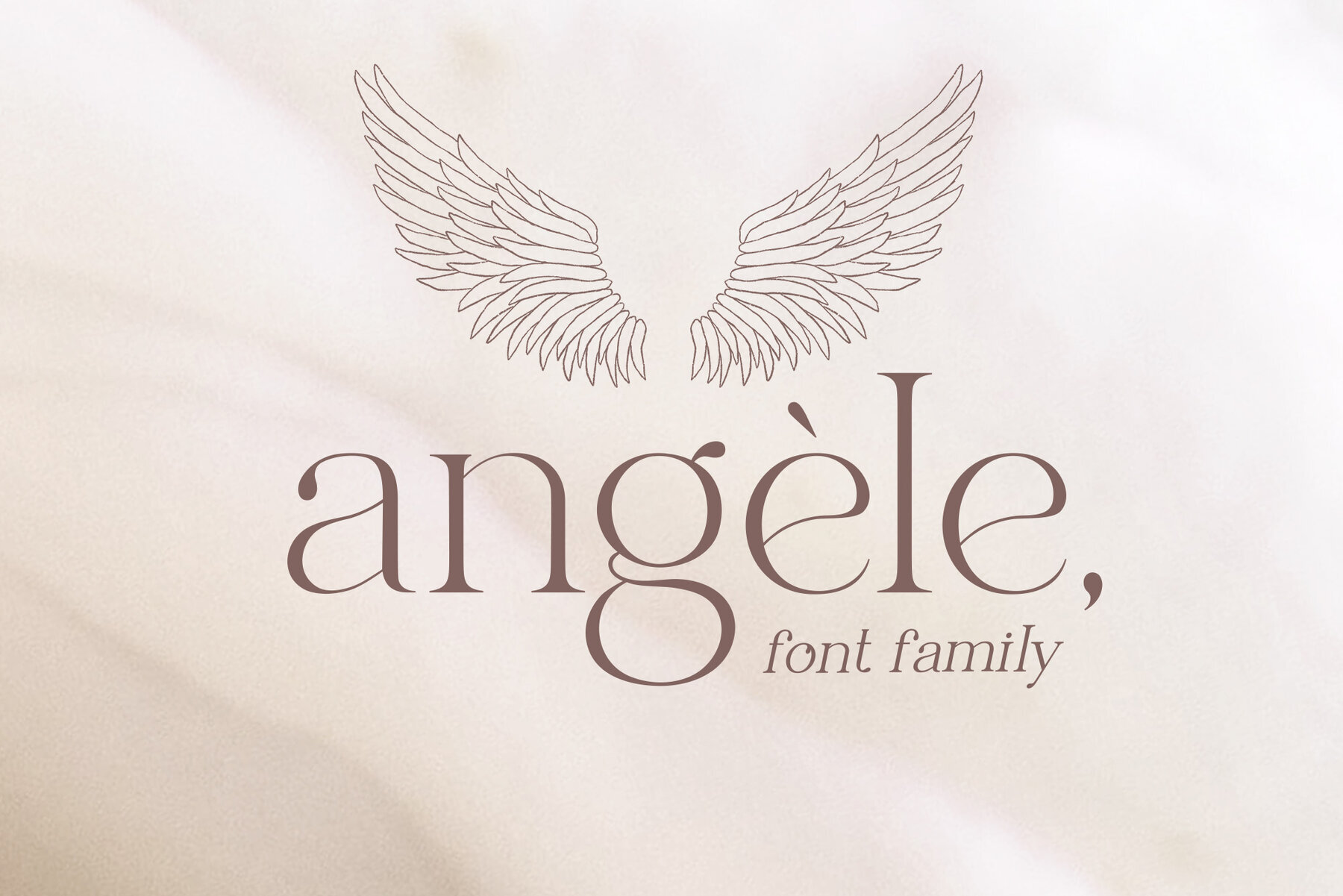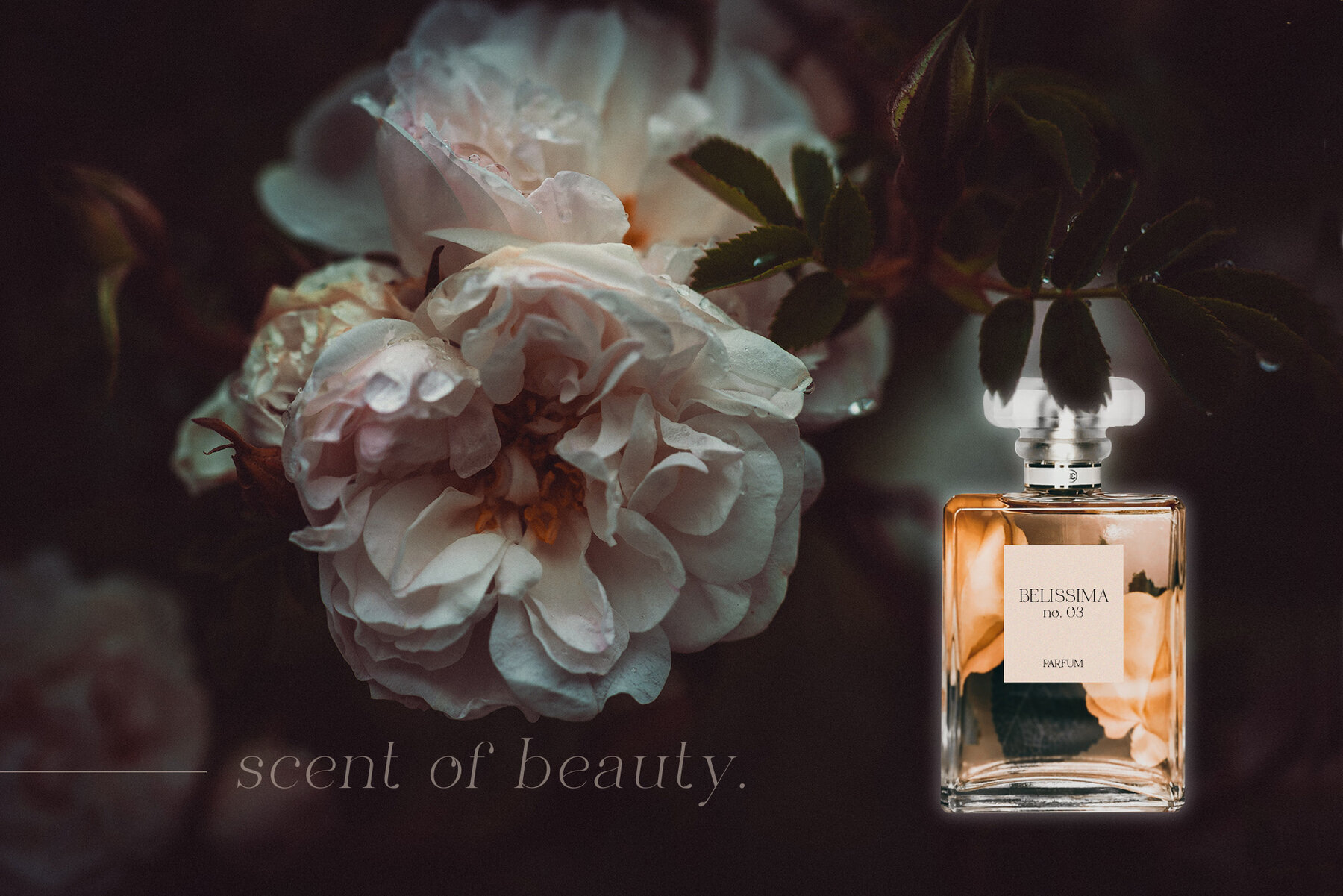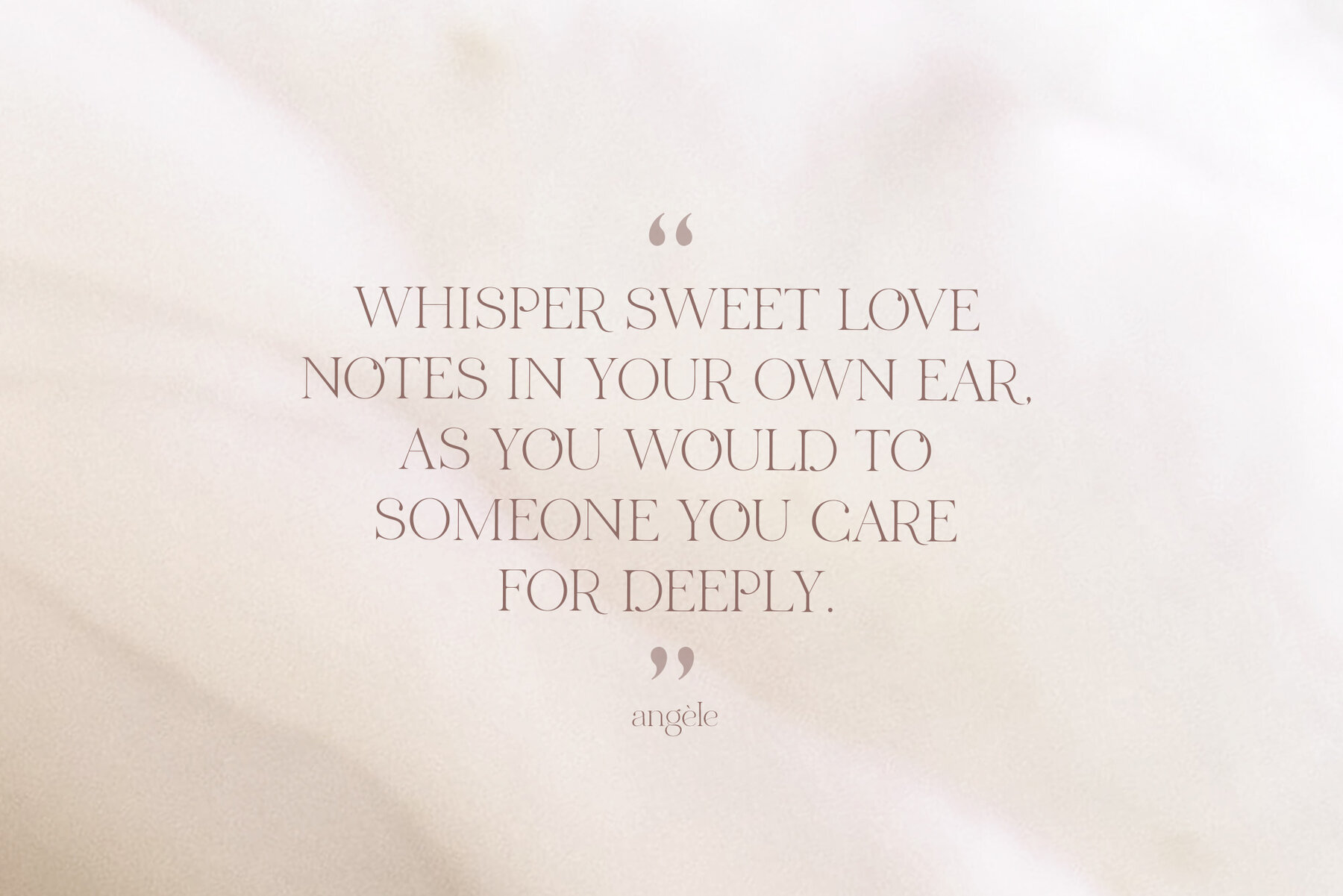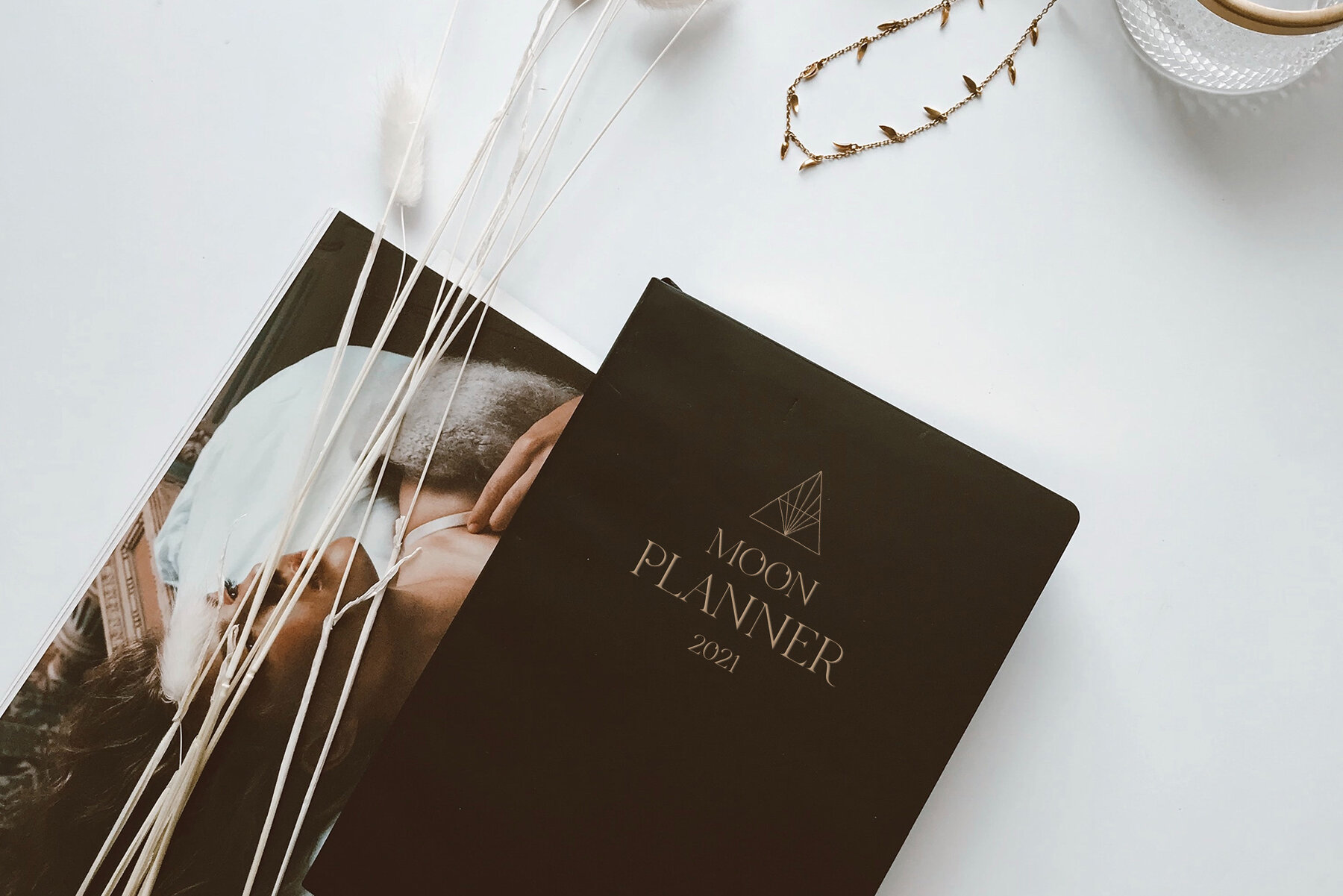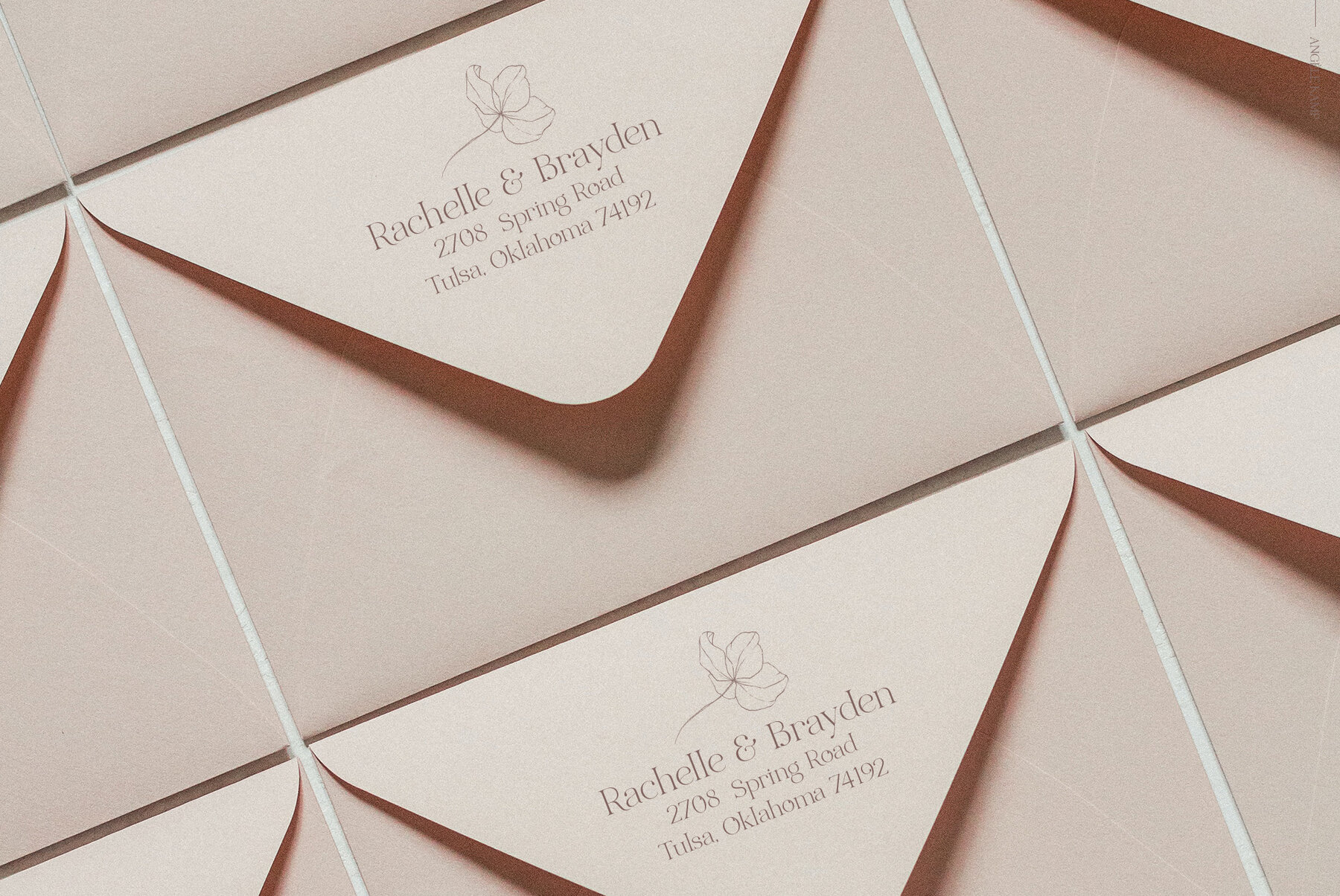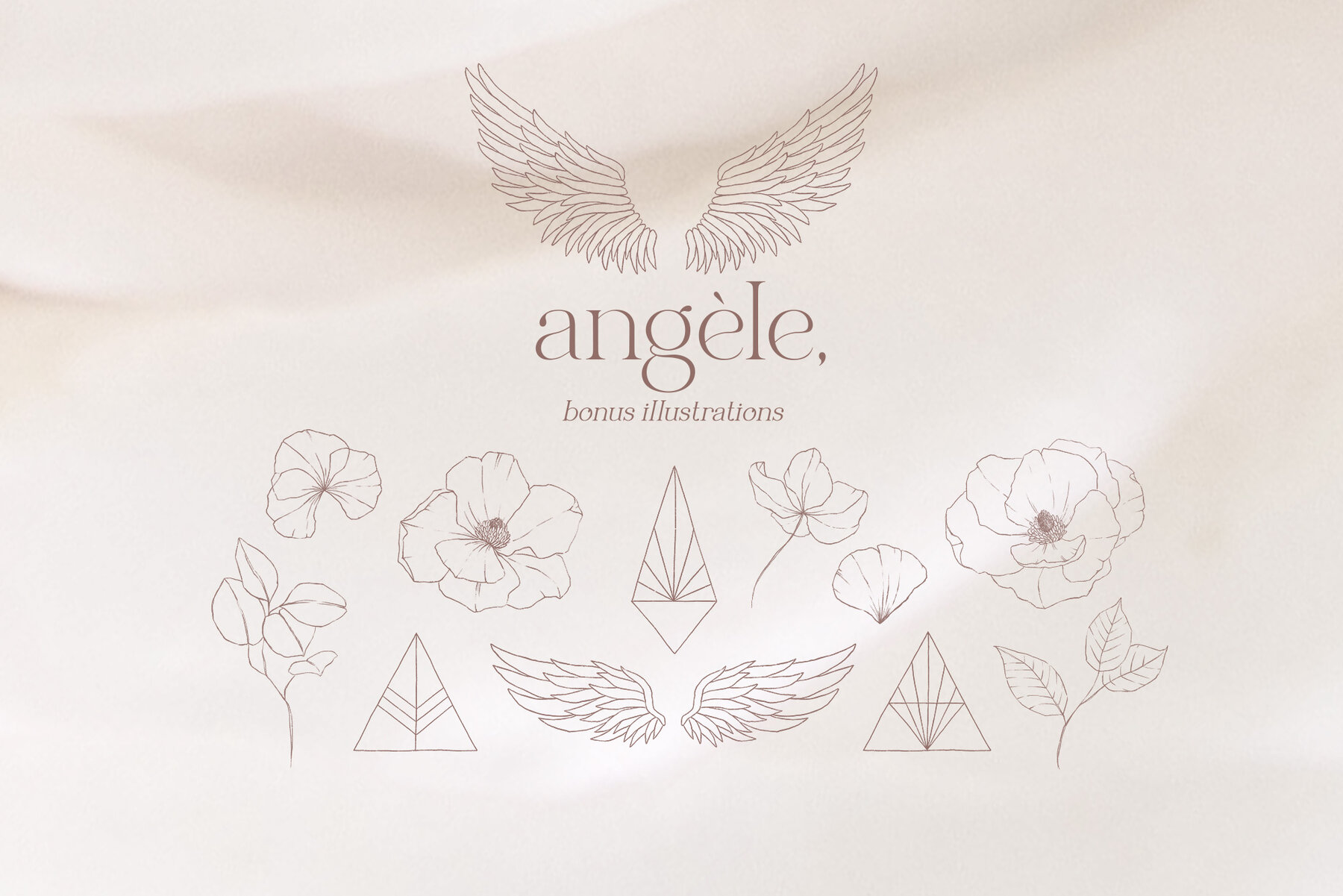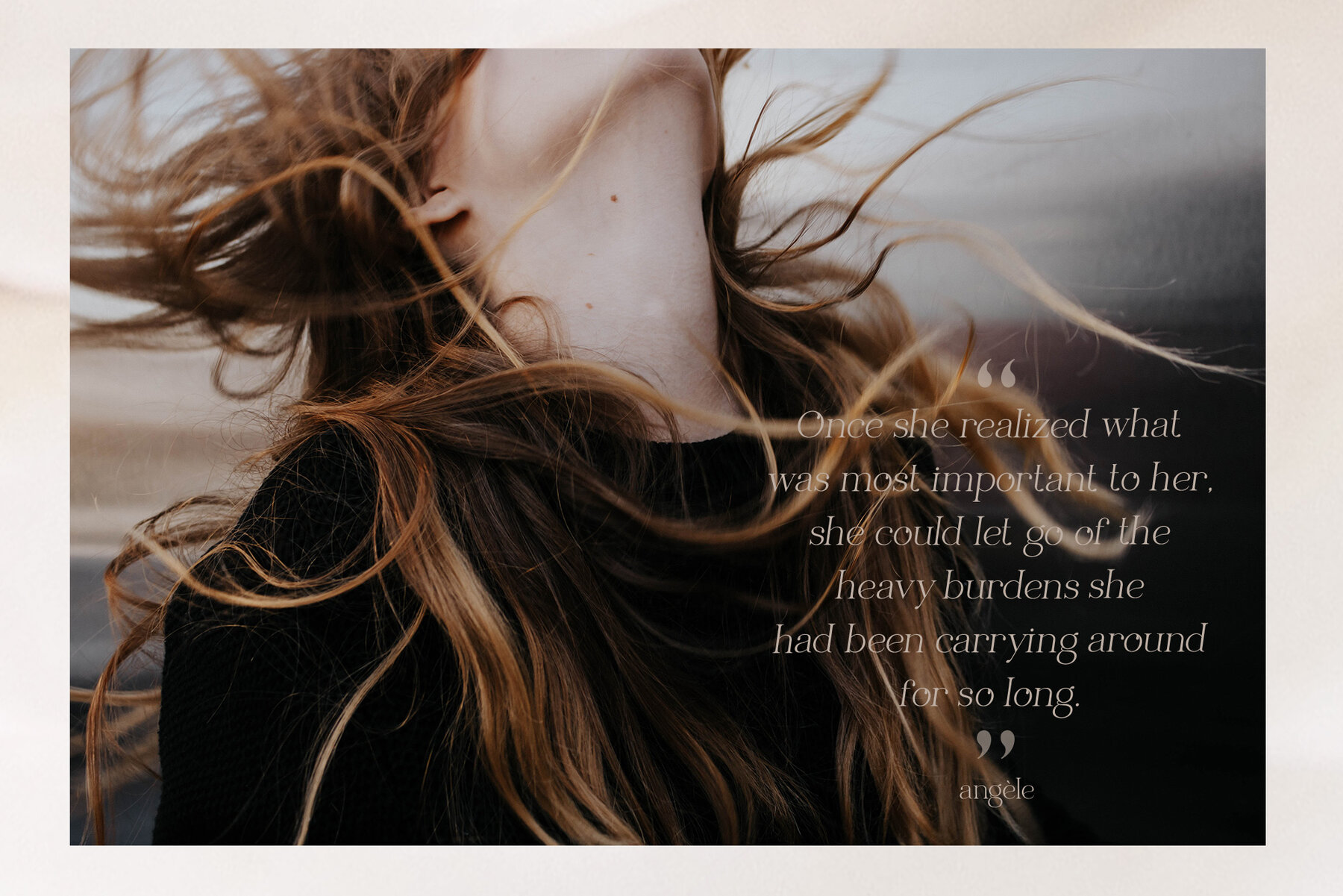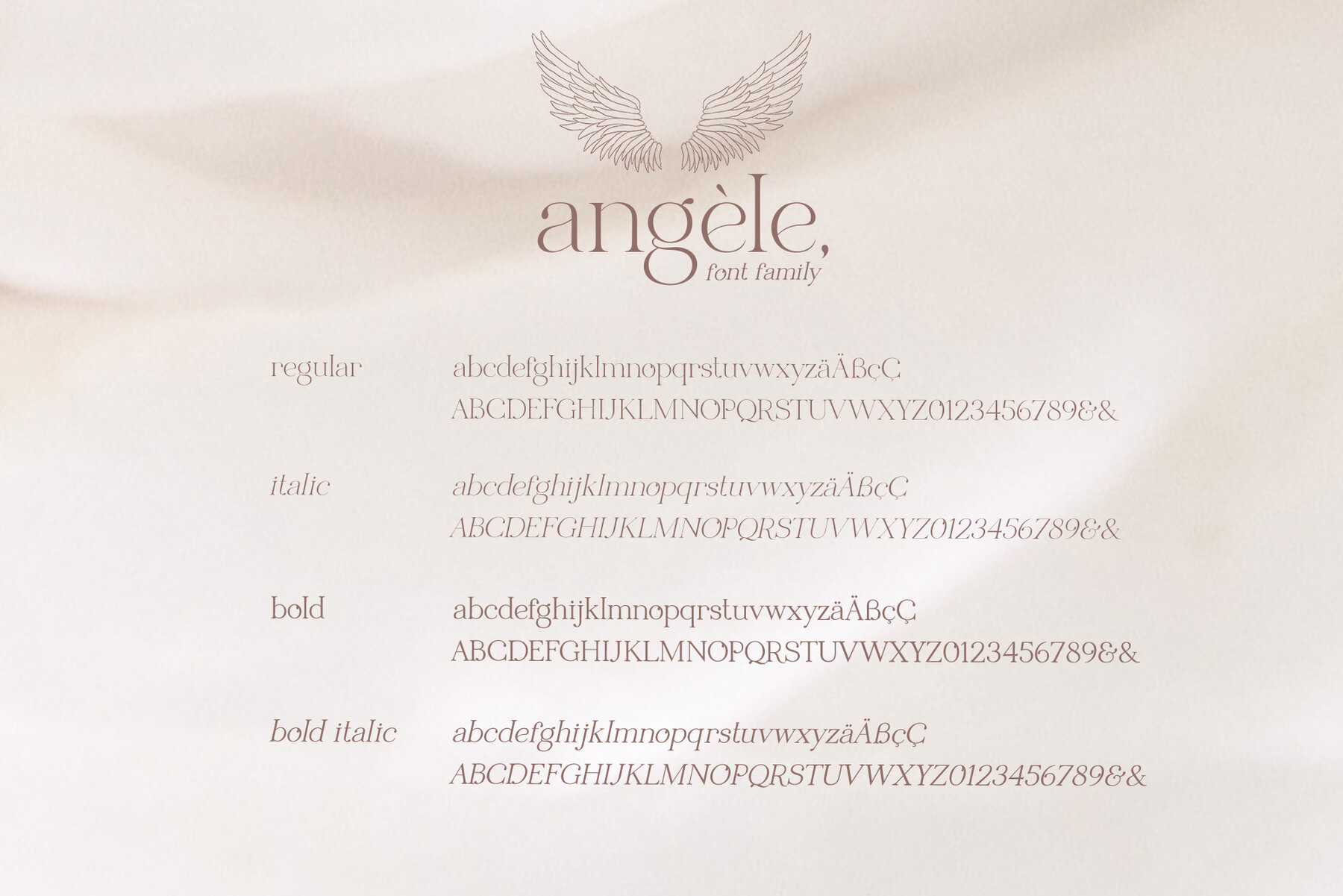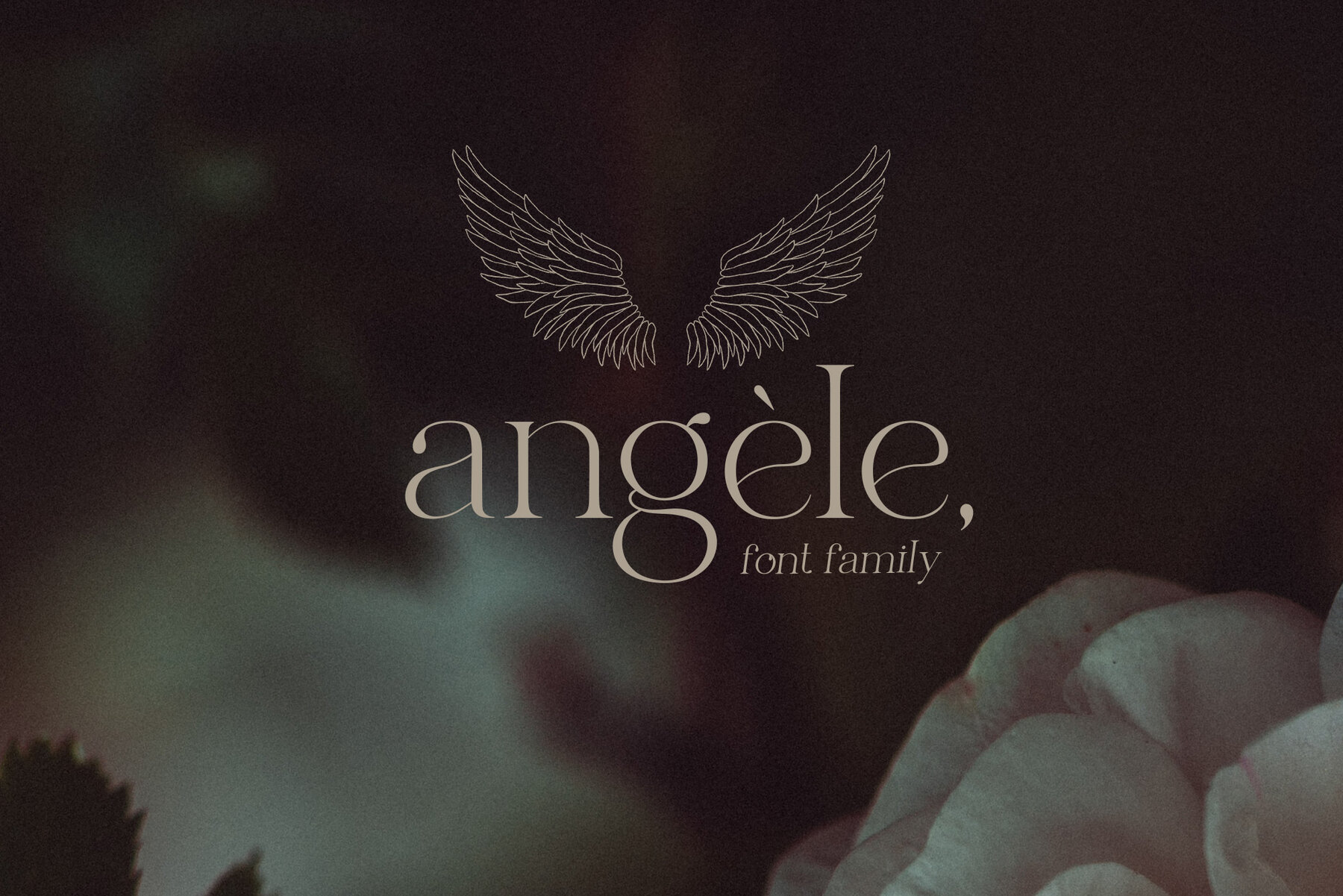
Angele is an elegant serif font family with stylish curves. This beautiful serif is timeless and can not be missed in your font collection. As a bonus, you will receive 12 beautifully hand-drawn illustrations that complement the font perfectly. This collection will give your design projects that instant touch of class.